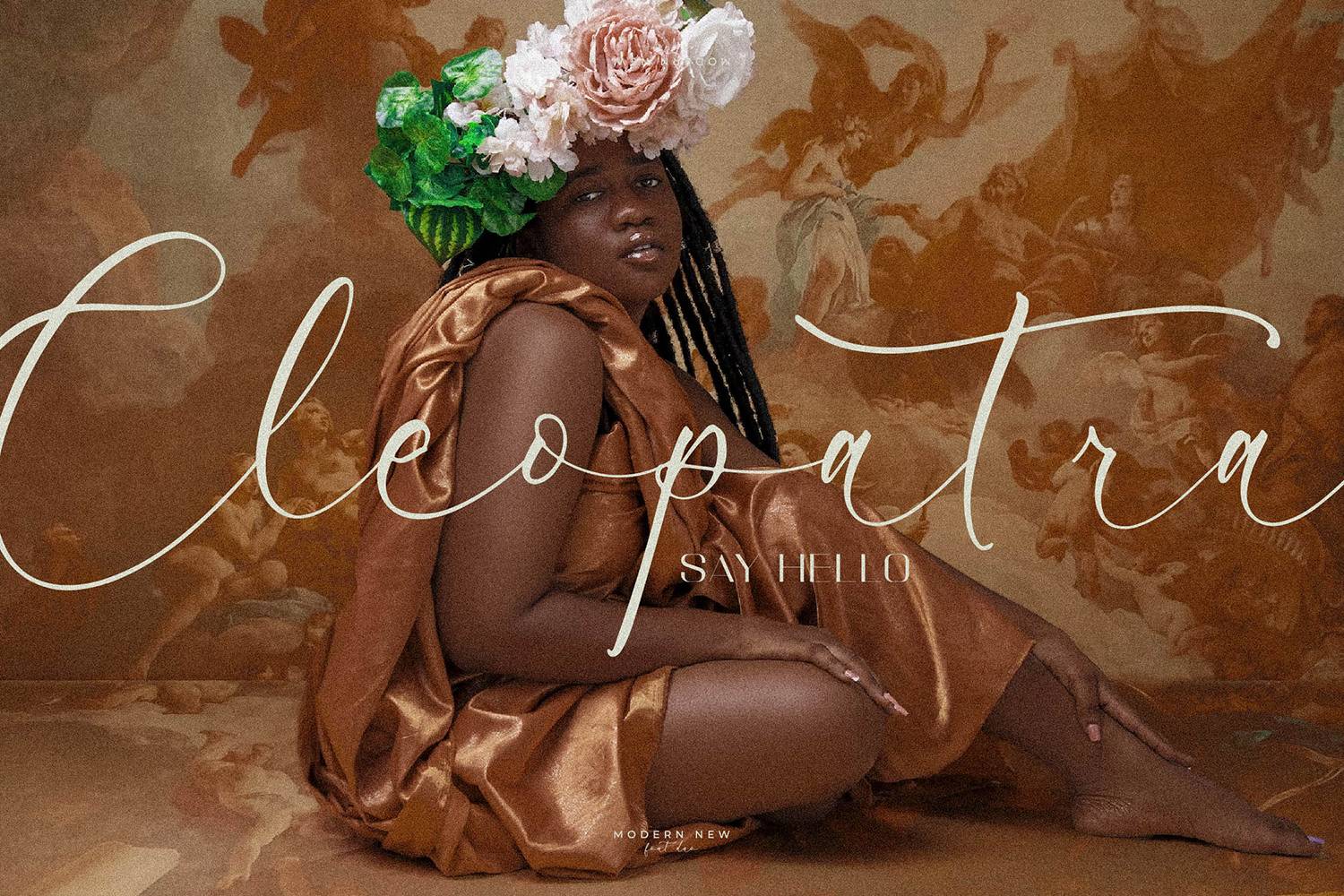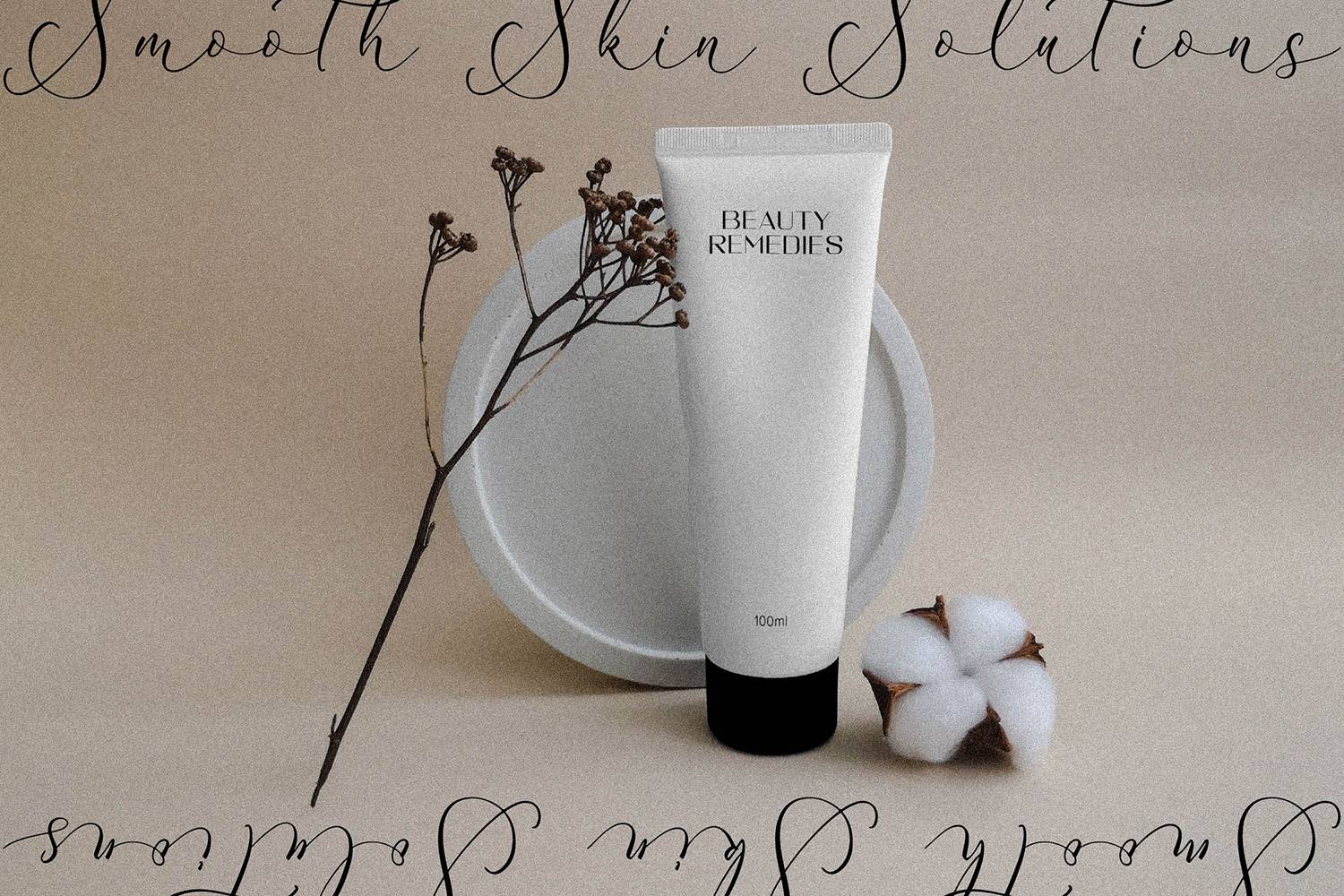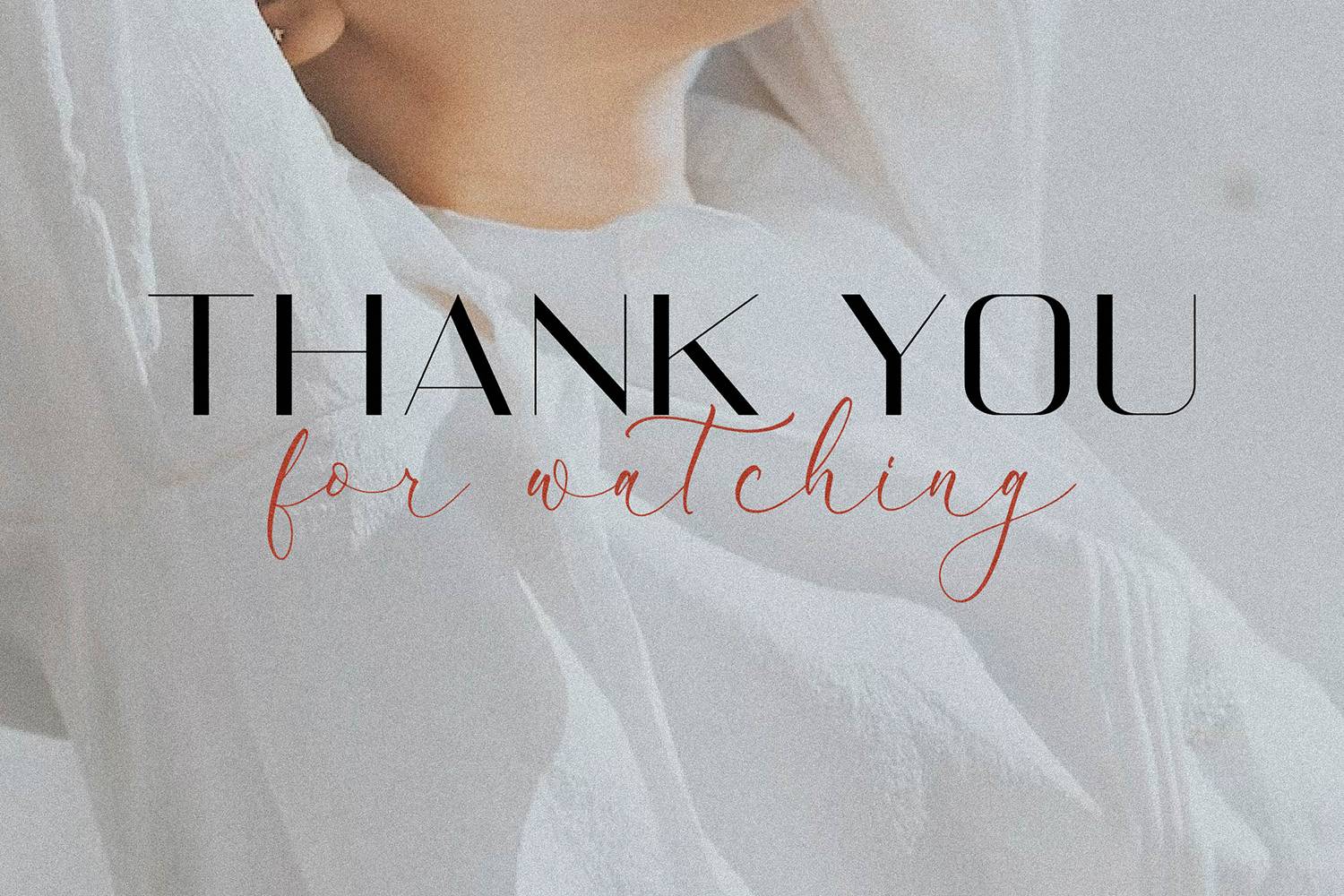
Veganzone Armstrong is a delicate, elegant script font characterized by its thin, flowing strokes and refined calligraphic style. It features high contrast with graceful letterforms that conjure a sense of sophistication and lightness, making it ideal for luxury branding, wedding invitations, and stylish editorial designs. This font’s airy, handwritten feel adds a personal, artistic touch that works beautifully in contexts where elegance and charm are key.
Veganzone Armstrong Font
About Veganzone Armstrong Font